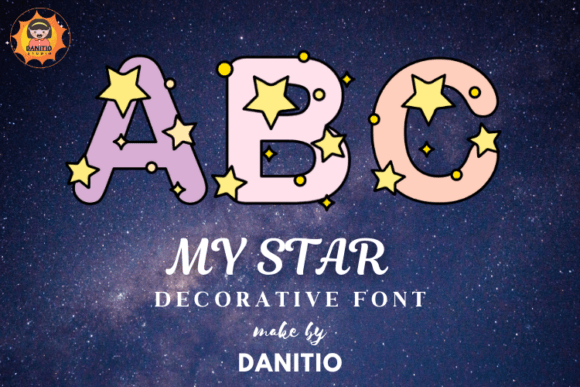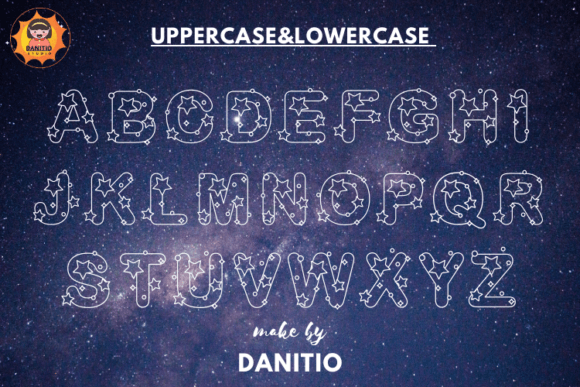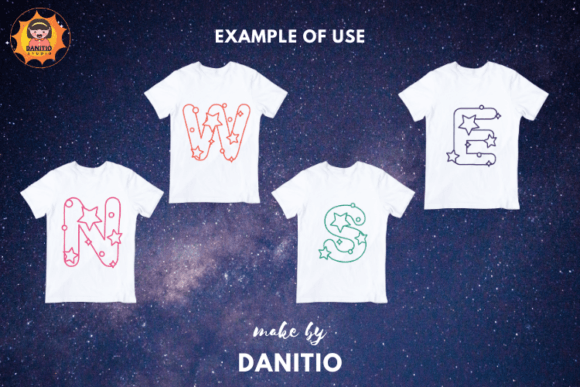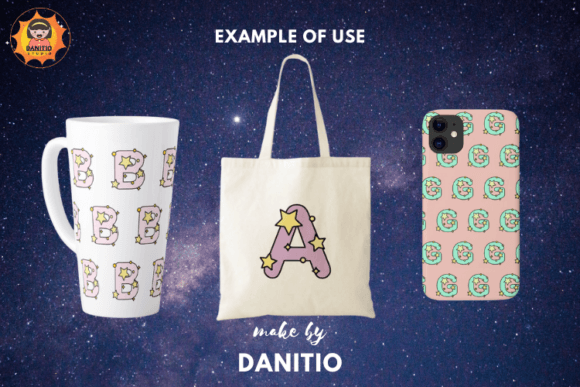
My Stars Font
About the My Stars Font
Meet My Stars Font, a stunning font that brings a touch of elegance and professionalism to any design. “My Stars Decorative” is a decorative font that adds uniqueness and charm to any design! With cute stars on the letters, This makes the font cuter and brings a sense of fun and magic to any creative project. From children’s books to greeting cards, posters and more, let your imagination shine with “My Stars Decorative” fonts.
My Stars Decorative’s playful personality makes it ideal for projects targeting young audiences or those requiring a whimsical touch. It excels in headlines, short text blocks on posters or greeting cards, and packaging for children’s products. However, its decorative nature makes it unsuitable for body text or UI elements where readability is paramount. Long paragraphs set in this font would be difficult to read.
Pairing My Stars Decorative effectively requires a contrasting but complementary font. A clean sans-serif like Open Sans or Lato would provide a strong visual counterpoint, enhancing readability in supporting text. For a slightly more playful pairing, consider a rounded sans-serif such as Poppins.
The font’s overall aesthetic leans towards friendly and approachable, making it particularly well-suited for brands associated with joy, creativity, and childhood.